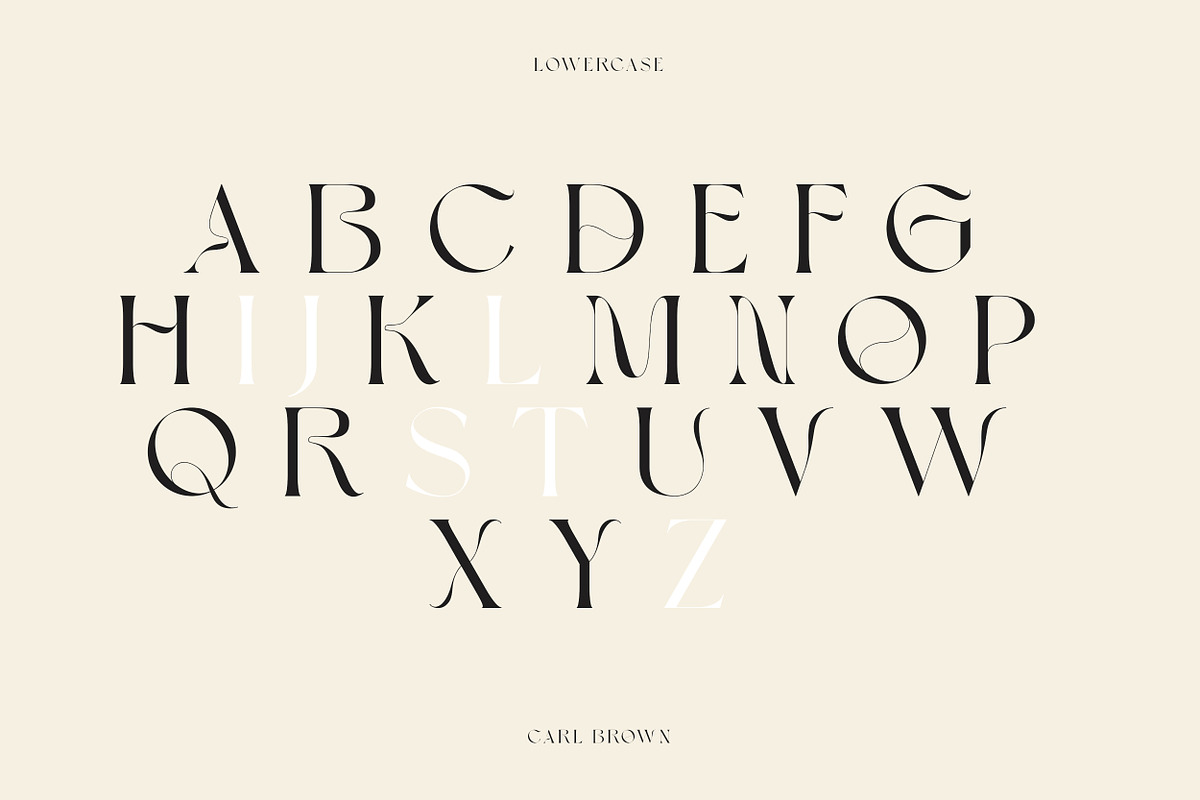
Carl Brown is a modern serif font designed by Muntab_Art. It includes uppercase and lowercase letters, numerals, and a wide range of punctuation. Created for poster, web design, branding, illustrations, badges and some other works.